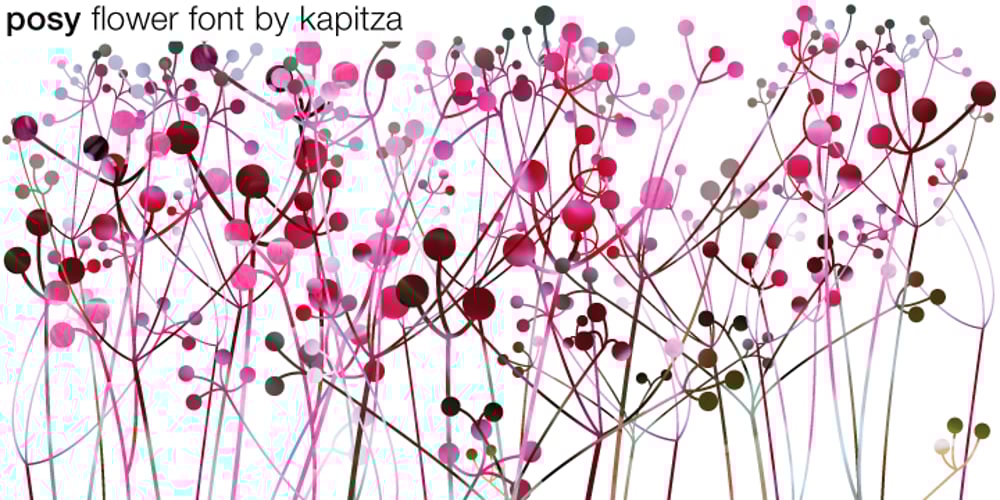
Posy Font Family was designed by published by kapitza. Posy contains 1 styles and family package options. Posy is a flower font inspired by the plant Sison Amomum or Stone Parsley. We find its structure utterly beautiful, and it inspired us to create the 52 cute graphic illustrations which make up this font. The various sizes of illustrations in this font make it easy to create stunning compositions.